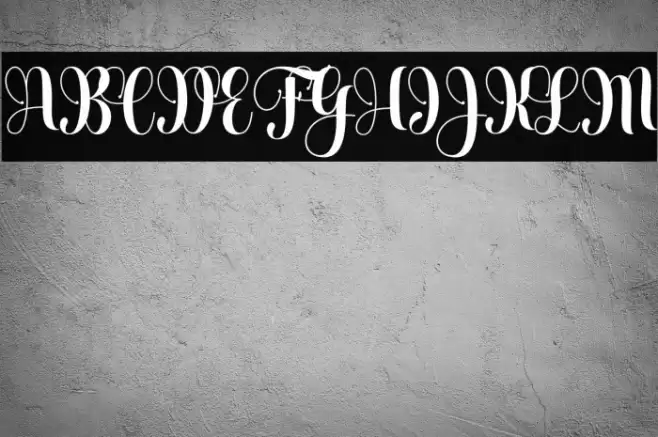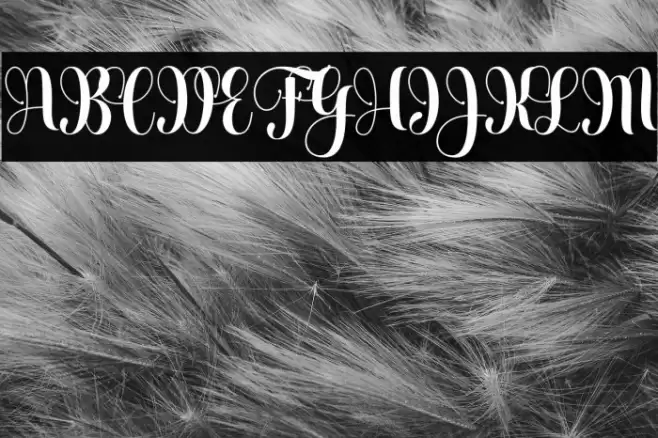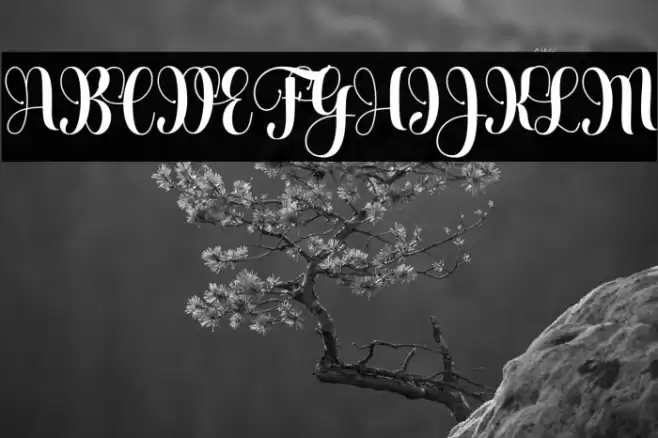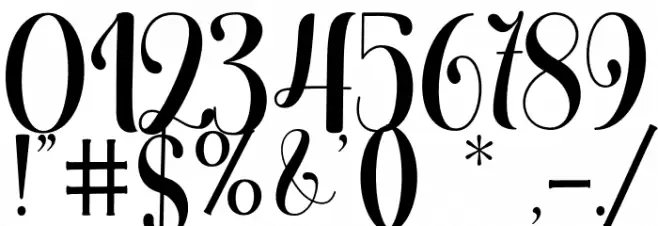
Heartbeatregular Font
Heartbeatregular Description
This font features an elegant and flowing script style, characterized by its intricate loops and swashes. The uppercase letters are particularly ornate, with dramatic flourishes that give a sense of movement and grace. The lowercase letters maintain a consistent style, with smooth curves and a slightly playful touch. Numbers are bold and maintain the same decorative flair, making them stand out. Special characters are designed with the same attention to detail, ensuring a cohesive look across all elements. This font is perfect for projects that require a touch of sophistication and elegance.
An elegant and flowing script font with intricate loops and swashes from Uncategorized fonts.
- Font: Heartbeatregular
- Proposed Projects: Ideal for wedding invitations, branding, greeting cards, and elegant packaging designs.
- Use Case: Logos, Invitations, Decorative text